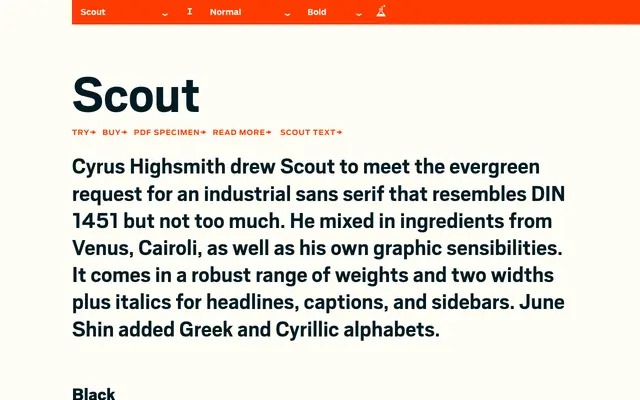
Scout
Occupant Fonts · Cyrus Highsmith · 2018
A DIN-influenced grotesque by Cyrus Highsmith that tempers industrial rigour with references to Venus and Cairoli across six weights, two widths and full italics.
Drawn by Cyrus Highsmith in 2018, Scout answers the perennial demand for a DIN-like sans without the coldness of the original, folding in traits from Venus and Cairoli alongside Highsmith's own graphic instincts. The family runs from Thin to Black with italic companions throughout, and a Condensed subfamily doubles the range for headlines, captions and sidebars. Greek and Cyrillic alphabets, contributed by June Shin, extend its reach across multilingual publishing.
Scout is a grotesque sans with industrial DIN-adjacent proportions, tempered by references to Venus and Cairoli, placing it firmly in the European grotesque tradition rather than geometric or humanist camps.